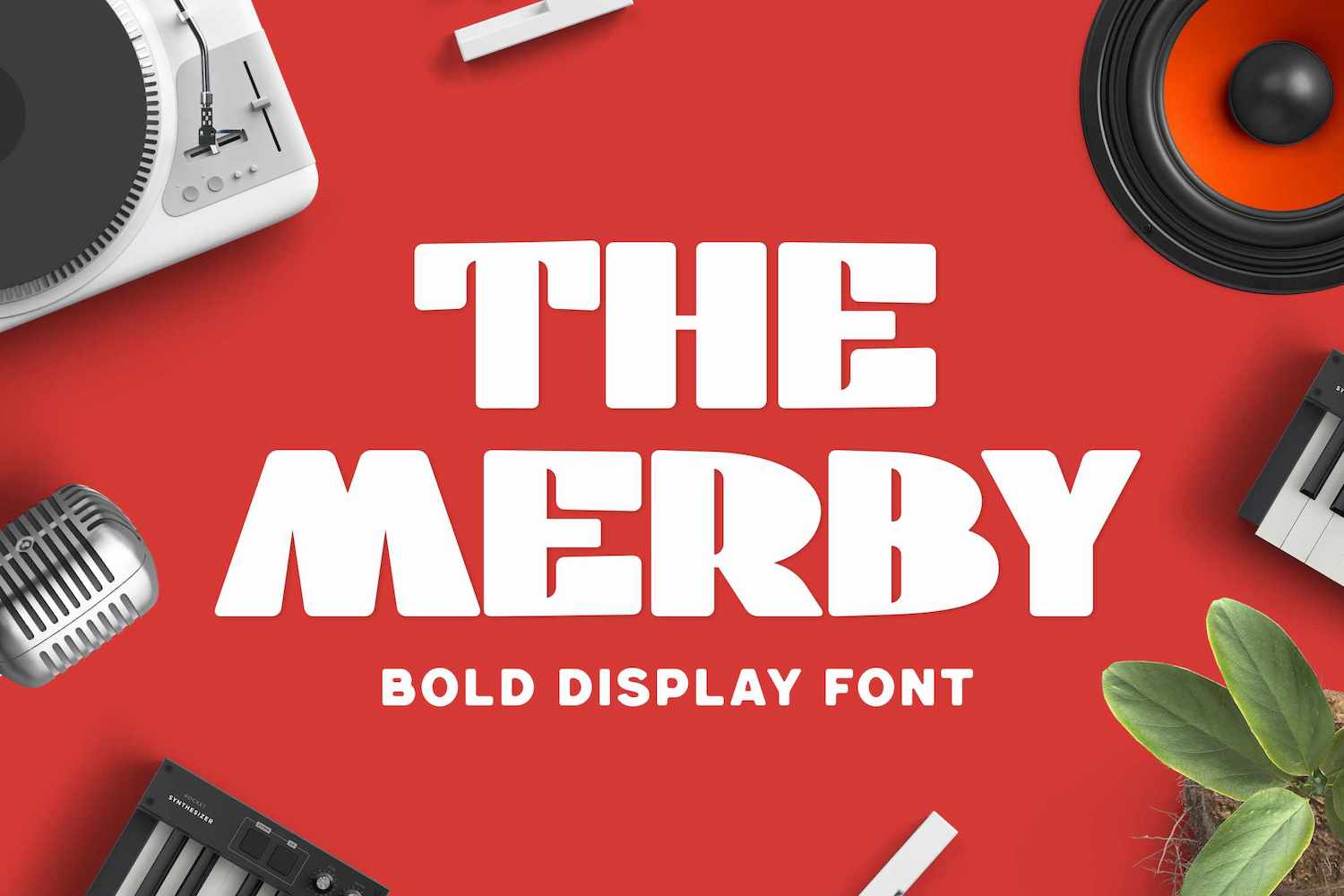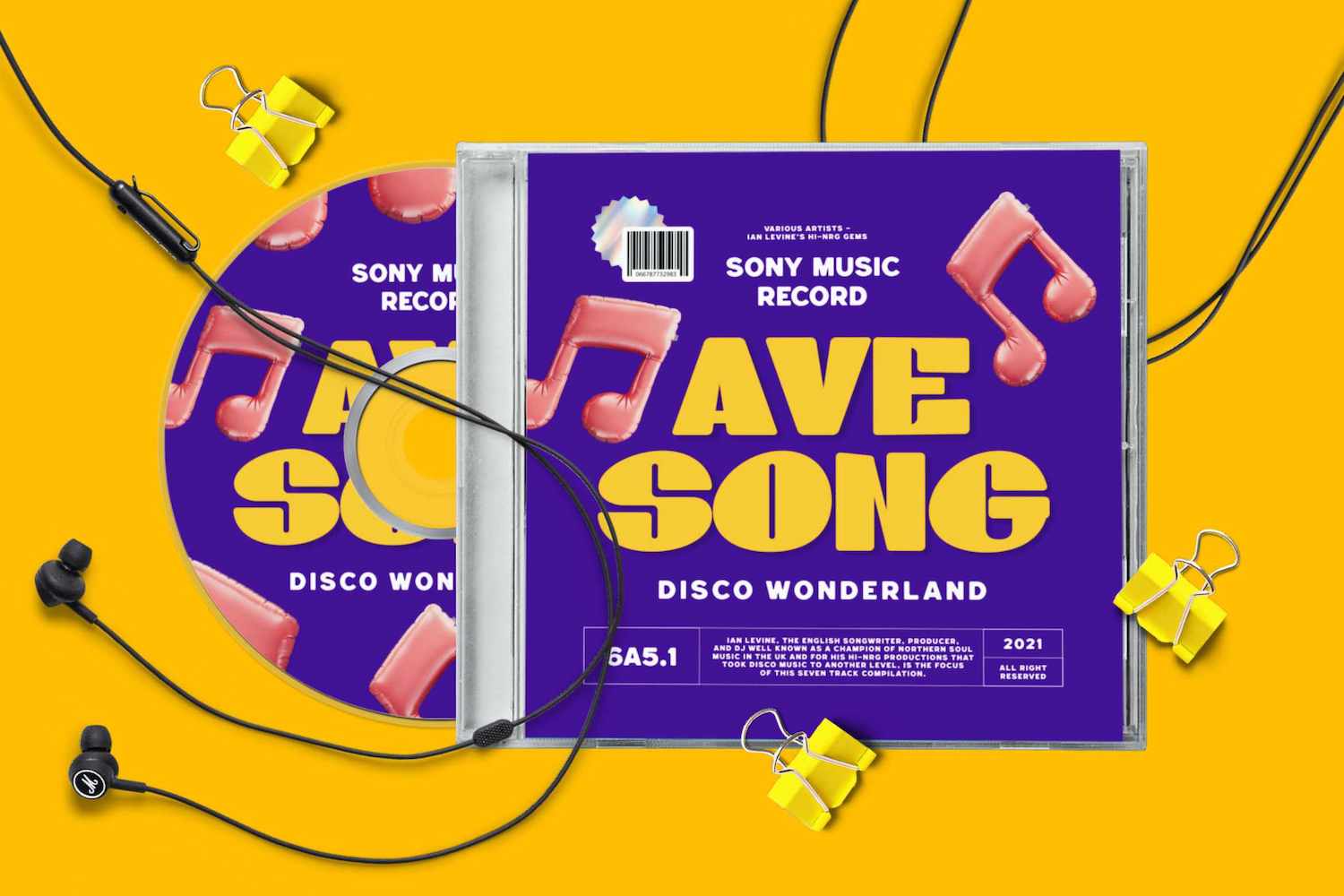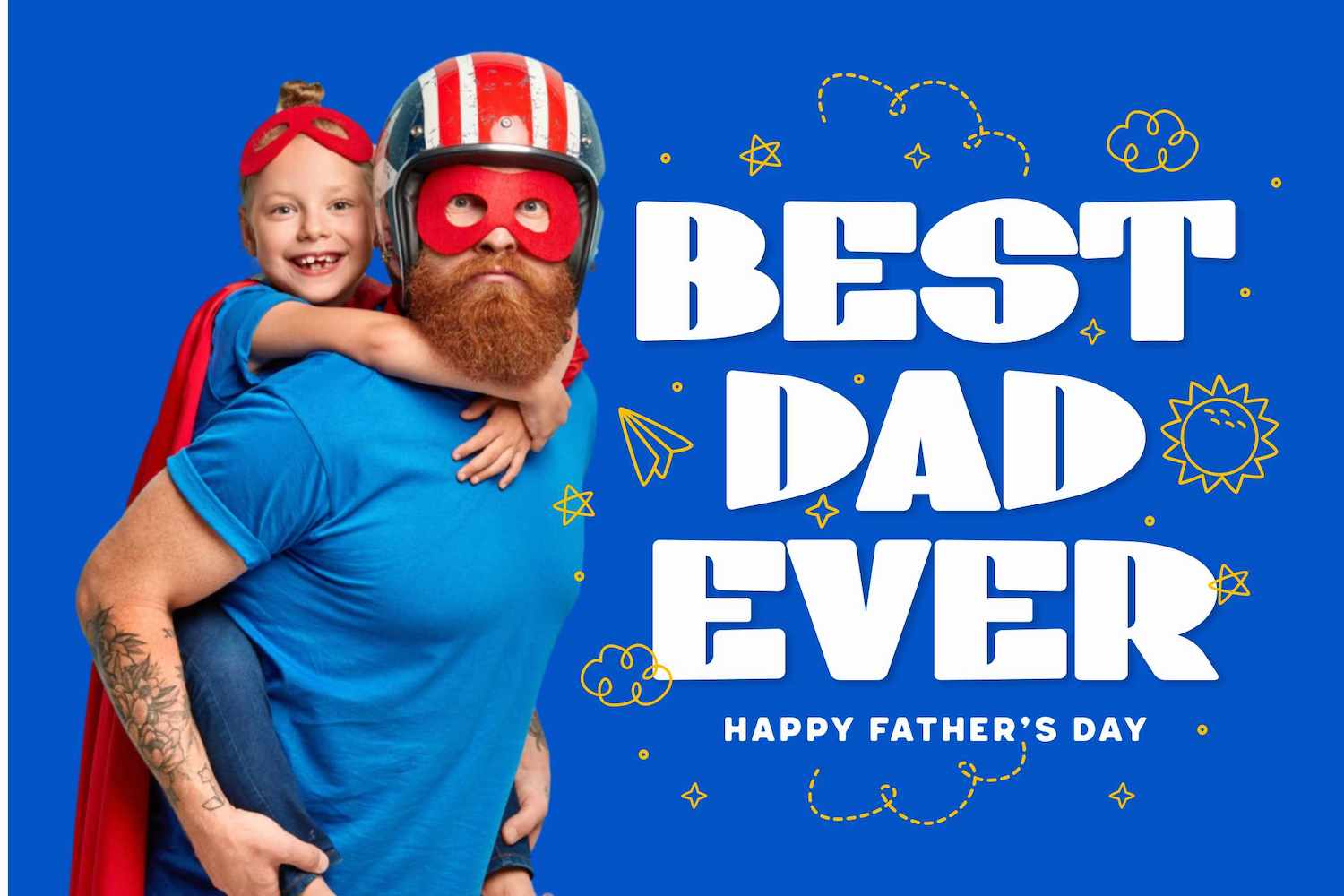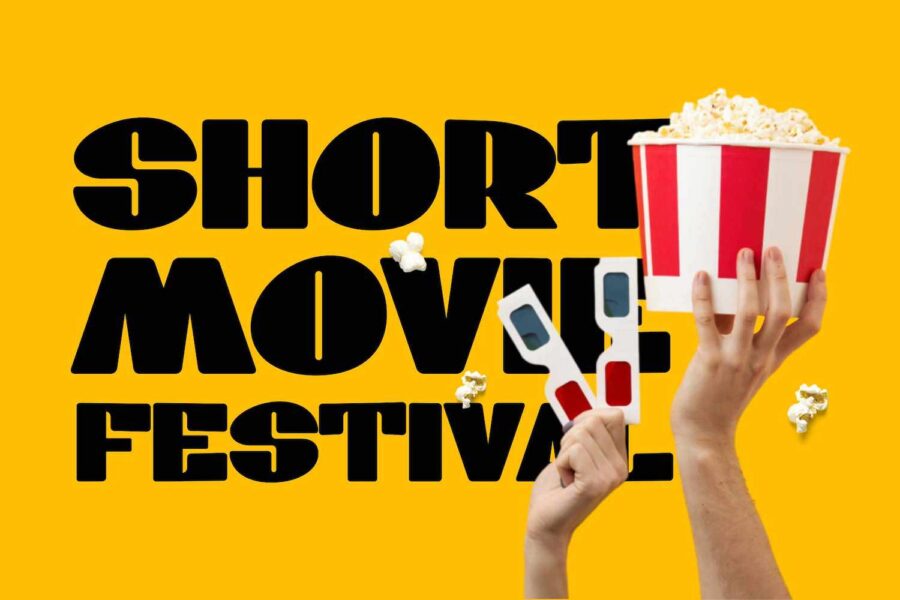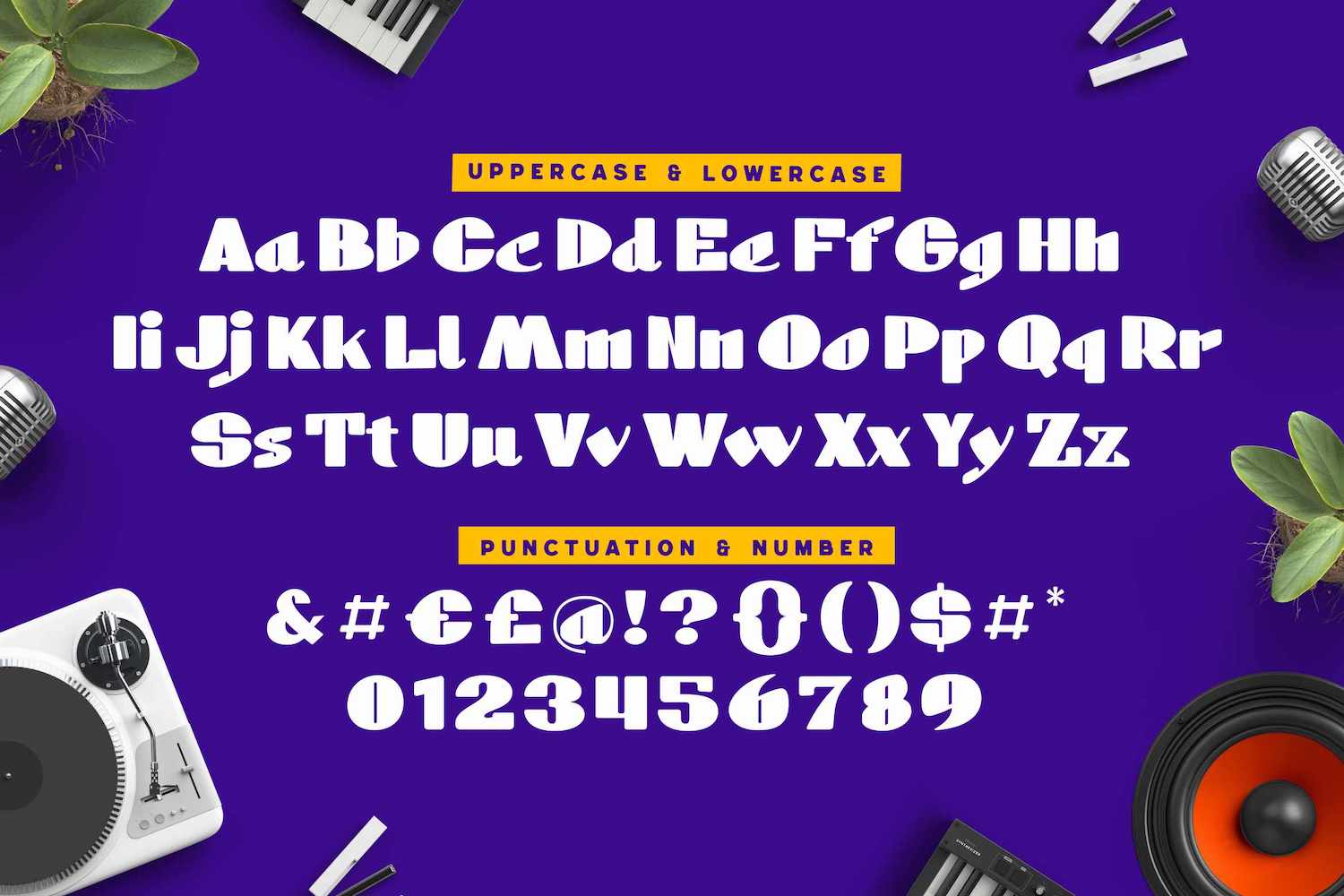
The Merby is a bold and funky display font with a groovy retro vibe, perfect for designs that want to stand out and make noise. Its thick curves, playful cuts, and strong presence bring a sense of fun and energy to any project. Be it music posters, album covers, party flyers, or children’s merchandise. Inspired by classic disco and pop culture, The Merby adds a punchy visual identity with its unique charm and bold character forms.
With full uppercase and lowercase letters, numbers, punctuation, and multilingual support, The Merby is versatile and easy to use. Whether you’re working on a Father’s Day design, a short film promo, or playful branding for creative products, this font will bring your message to life with a vibrant and cheerful personality.
The Merby